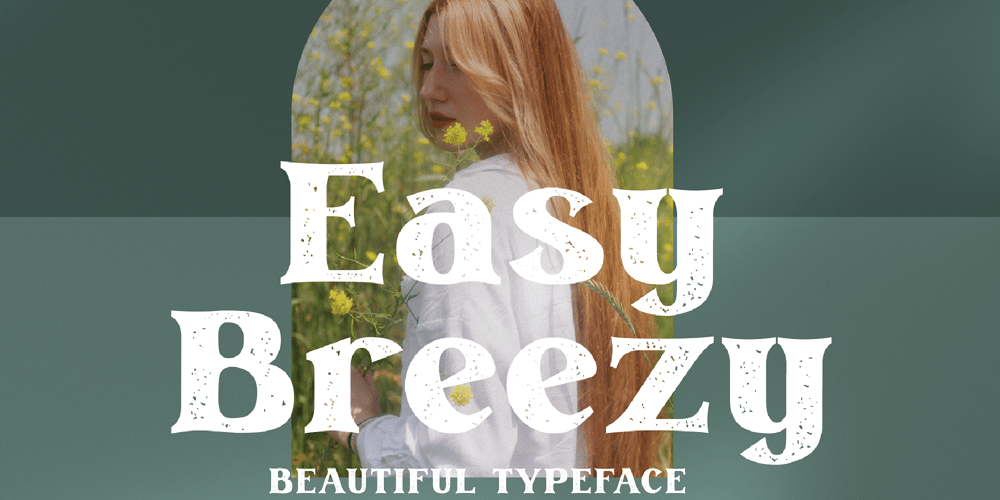
Easy Breezy Type Font Family was designed by Igor Ovsyannykov and published by Hipfonts. Easy Breezy Type contains 1 styles and family package options. Introducing Easy Breezy, a font that effortlessly transports you to a bygone era of carefree charm and nostalgic beauty. Inspired by the retro styles of the past, this vintage gem captures the essence of a relaxed and laid-back vibe.Its flowing letterforms and playful curves breathe life into your designs, exuding a sense of whimsy and joy. With Easy Breezy, your projects will radiate a delightful vintage aura, whether you’re designing invitations, branding materials, or signage. Let this font whisk you away to a world of sunny days, gentle breezes, and endless possibilities.Embrace the effortless beauty of Easy Breezy and create designs that capture the heart with their timeless appeal. Experience the nostalgia, embrace the freedom, and let your creativity soar with Easy Breezy at your fingertips.